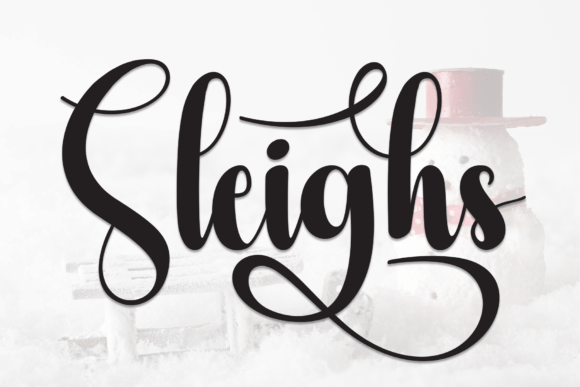
Journey into a World of Elegance with Sleighs Script - Your Gateway to Unforgettable Designs
Embrace the timeless beauty of Sleighs Script, a sophisticated and enchanting creation by the visionary hand of William Jhorney. This masterpiece is a visual symphony that marries the classic allure of script typography with a dash of contemporary charm. Let your imagination soar as Sleighs Script takes you on an artistic voyage.
With its delicate curves and sweeping strokes, Sleighs Script dances across the page like a ballerina in motion. The font's inherent grace and fluidity lend themselves effortlessly to an array of design projects, from wedding invitations and greeting cards to posters and branding materials. Picture your words transformed into works of art as Sleighs Script weaves its charm through every character.
Brimming with versatility, Sleighs Script effortlessly adapts to your creative vision, whether you seek a formal, elegant aesthetic or a whimsical, lighthearted touch. Its versatility knows no bounds, making it the perfect choice for a multitude of projects, from personal correspondence to professional presentations.
Sleighs Script is not merely a font; it's an experience that ignites the imagination. Its presence on your designs instantly elevates them to new heights, leaving an indelible mark on the hearts of your audience. Let the magic of Sleighs Script transport you into a realm of creativity where boundaries dissolve and dreams take flight.
Harness the power of Sleighs Script today and embark on a creative journey that will leave your audience spellbound. Step into a world of elegance, grace, and limitless possibilities.